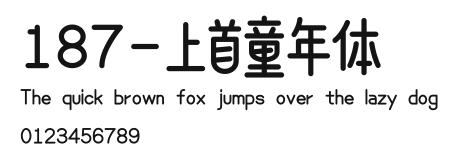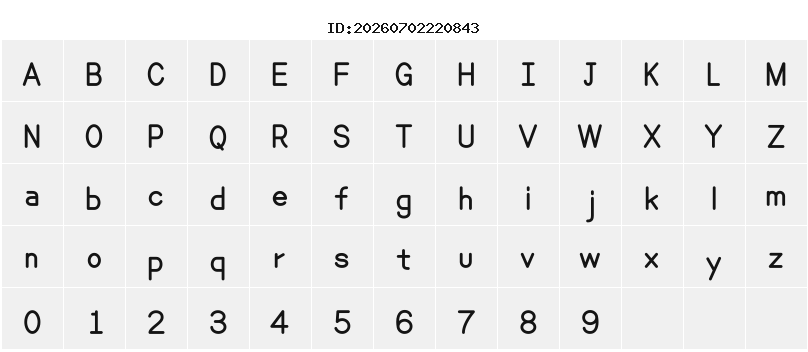
• Font Name: 187-上首童年体
• Full Font Name: 187-上首童年体
• Character Count: 7569
• Manufacturer: 上首造字
About 187-上首童年体.ttf
187-上首童年体.ttf is a modern, elegant sans-serif font designed for ultimate readability and visual harmony. Perfect for branding, headlines, web design, and print materials.